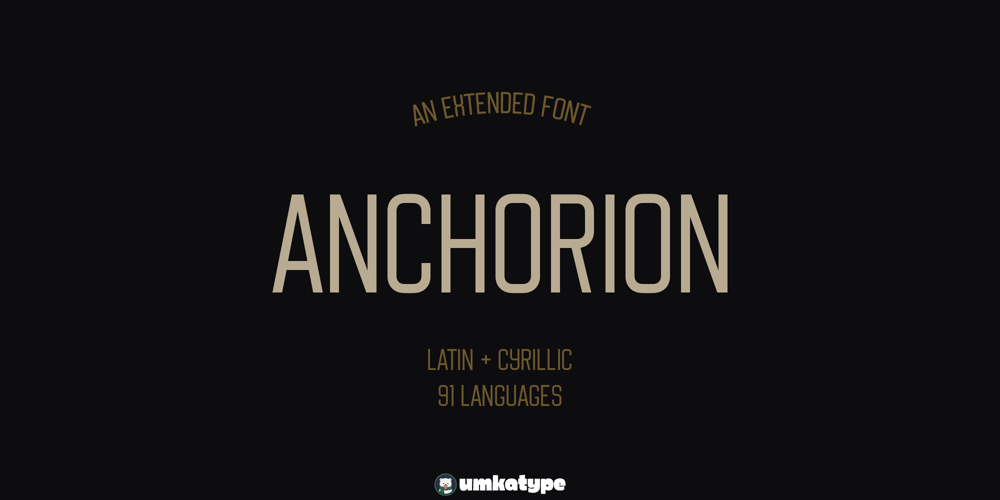
Anchorion Font Family was designed by Alper Çakıcı and published by Umka Type. Anchorion contains 1 styles and family package options. Anchorion is a modern and sleek font. It has 91 languages support:Belarusian, Russian, Afrikaans, Albanian, Asu, Basque, Bemba, Bena, Breton, Catalan, Chiga, Colognian, Cornish, Croatian, Czech, Danish, Dutch, Embu, English, Esperanto, Estonian, Faroese, Filipino, Finnish, French, Friulian, Galician, German, Gusii, Hungarian, Indonesian, Irish, Italian, Kabuverdianu, Kalenjin, Kamba, Kikuyu, Kinyarwanda, Latvian, Lithuanian, Lower Sorbian, Luo, Luxembourgish, Luyia, Machame, Makhuwa-Meetto, Makonde, Malagasy, Maltese, Manx, Meru, Morisyen, North Ndebele, Norwegian Bokmål, Norwegian Nynorsk, Nyankole, Oromo, Polish, Portuguese, Quechua, Romanian, Romansh, Rombo, Rundi, Rwa, Samburu, Sango, Sangu, Scottish Gaelic, Sena, Serbian, Shambala, Shona, Slovak, Soga, Somali, Spanish, Swahili, Swedish, Swiss German, Taita, Teso, Turkish, Upper Sorbian, Uzbek (Latin), Volapük, Vunjo, Walser, Welsh, Western Frisian, Zulu